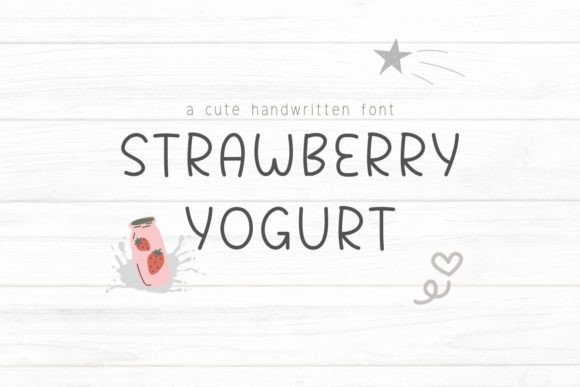
Introducing Strawberry Yogurt Font, the Coolest Font for Tattoos!
Step into the world of self-expression and artistic freedom with Strawberry Yogurt Font, the ultimate font for tattoo enthusiasts. This meticulously crafted script font embodies the essence of individuality, allowing you to turn your skin into a canvas of creativity.
Express Yourself with Endless Possibilities:
With Strawberry Yogurt Font, the possibilities are boundless. Create captivating tattoos that reflect your unique personality, dreams, and aspirations. From bold statements to intricate designs, let your imagination run wild and transform your body into a masterpiece.
Simple Yet Striking:
The beauty of Strawberry Yogurt Font lies in its simplicity. Its clean lines and effortless flow create a visually appealing effect that commands attention. Whether you prefer minimalist designs or elaborate compositions, this font will elevate your tattoos to new heights.
Perfect for Every Occasion:
Strawberry Yogurt Font is incredibly versatile, making it suitable for any occasion or style. Whether you're drawn to traditional tattoos, geometric patterns, or modern abstract art, this font seamlessly adapts to your vision. Its timeless appeal ensures that your tattoos will remain relevant and striking for years to come.
Embrace Your Inner Artist:
With Strawberry Yogurt Font, you have the power to become your own tattoo artist. Whether you're a seasoned professional or just starting, this font provides the perfect foundation for creating stunning designs that will leave a lasting impression. Unleash your creativity and turn your body into a living work of art.
Join the Tattoo Revolution:
Join the ranks of tattoo enthusiasts and trendsetters who have embraced Strawberry Yogurt Font. Experience the satisfaction of creating unique tattoos that reflect your true self. With this font by your side, you'll never run out of inspiration and your tattoos will always be a source of pride and admiration.